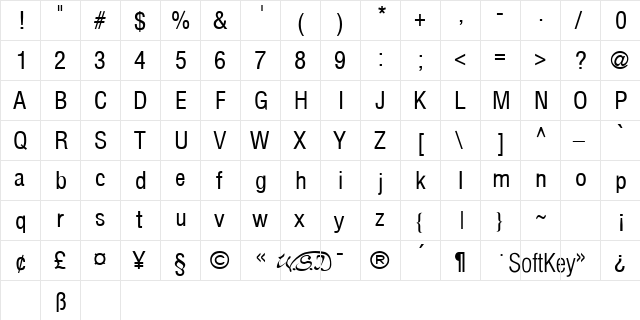
SuperDome Regular
Design Context for SuperDome Typeface
SuperDome takes a measured approach to typography — its balanced proportions and neutral character make it a reliable workhorse for both digital and print work.